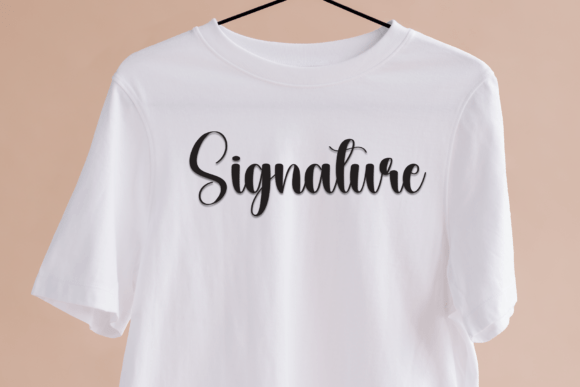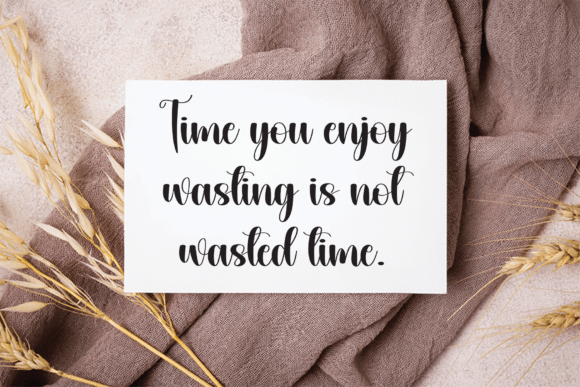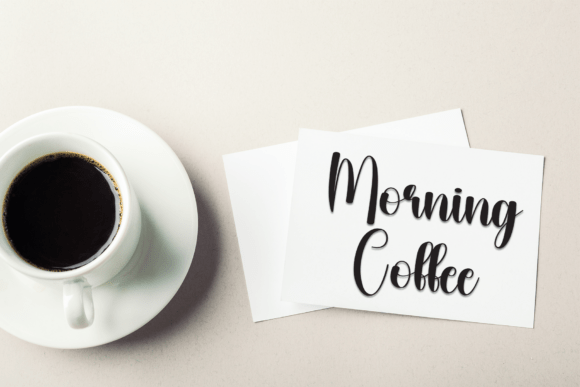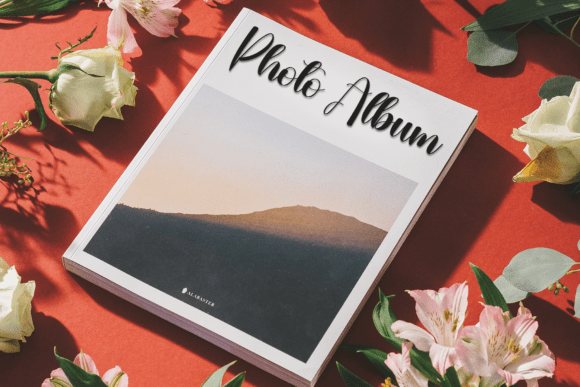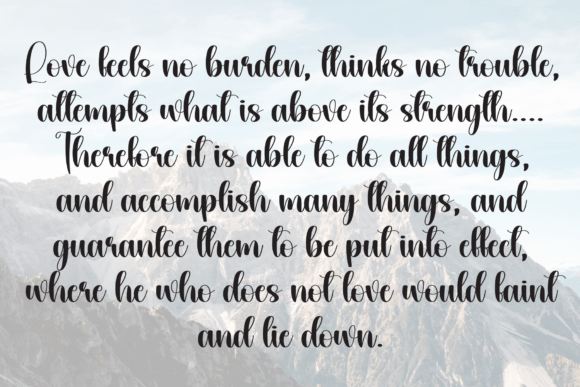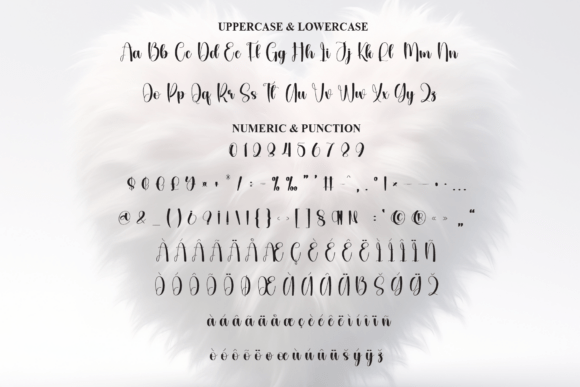
Bulky Font: Elevate Your Designs with Artistic Flair and Contemporary Elegance
In the world of typography, a well-crafted font can make all the difference in elevating your design from ordinary to extraordinary. Introducing Bulky, a stylish script font that embodies the perfect blend of artistic flair and contemporary elegance. With its fluid brush strokes, dynamic curves, and expressive letterforms, Bulky captures the essence of hand-painted calligraphy with a modern twist.
The Art of Hand-Painted Calligraphy
Hand-painted calligraphy has long been a revered art form, prized for its unique, human touch and emotive quality. Bulky Font brings this art form to life, infusing your designs with a sense of personality and whimsy. Each letterform is carefully crafted to evoke the feeling of a brushstroke, with subtle variations in line width and texture that give the font a delightfully organic feel.
Key Features of Bulky Font
- Fluid Brush Strokes: Bulky’s fluid brush strokes give the font a dynamic, hand-painted feel that’s perfect for designs that require a touch of elegance and sophistication.
- Dynamic Curves: The font’s dynamic curves add a sense of movement and energy to your designs, making it ideal for logos, invitations, and social media graphics.
- Expressive Letterforms: Each letterform in Bulky is carefully crafted to convey a sense of personality and whimsy, making it perfect for designs that require a touch of artistic flair.
Bulky Font is incredibly versatile, making it suitable for a wide range of design applications. Here are just a few ideas to get you started:
- Logos: Use Bulky to create a unique, hand-crafted logo that sets your brand apart from the competition.
- Invitations: Add a touch of elegance and sophistication to your invitations, whether it’s for a wedding, birthday party, or corporate event.
- Packaging: Use Bulky to create eye-catching packaging that stands out on store shelves and reflects your brand’s personality.
- Social Media Graphics: Elevate your social media graphics with Bulky’s artistic flair and contemporary elegance.
Why Choose Bulky Font?
So why choose Bulky Font for your design projects? Here are just a few reasons:
- Visual Impact: Bulky delivers both visual impact and versatility, making it perfect for designs that require a bold, eye-catching font.
- Creative Freedom: With Bulky, you have the creative freedom to experiment with a wide range of design applications, from logos and invitations to packaging and social media graphics.
- Sophisticated Touch: Bulky adds a sophisticated touch to any design, making it perfect for designers and crafters who want to elevate their work.
In conclusion, Bulky Font is a stylish script font that offers the perfect blend of artistic flair and contemporary elegance. With its fluid brush strokes, dynamic curves, and expressive letterforms, it’s ideal for designers and crafters who want to add a creative and sophisticated touch to their work. Whether you’re creating logos, invitations, packaging, or social media graphics, Bulky is the perfect choice for designs that require a bold, eye-catching font.